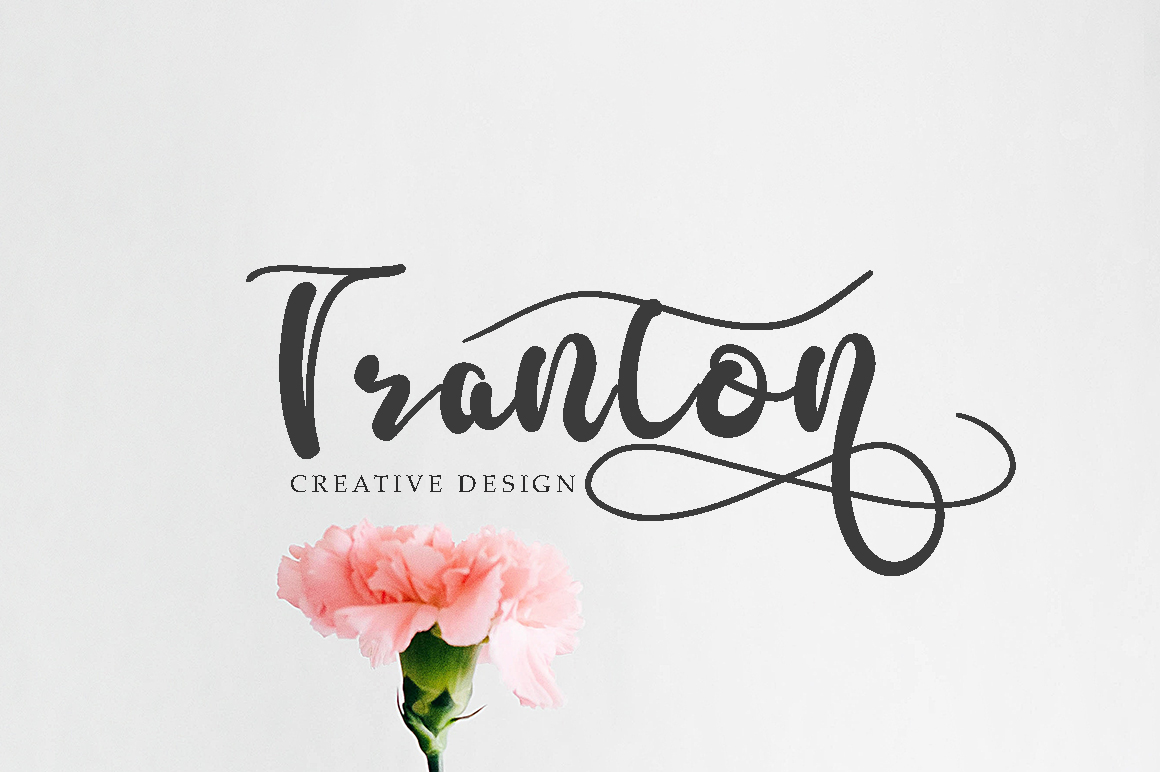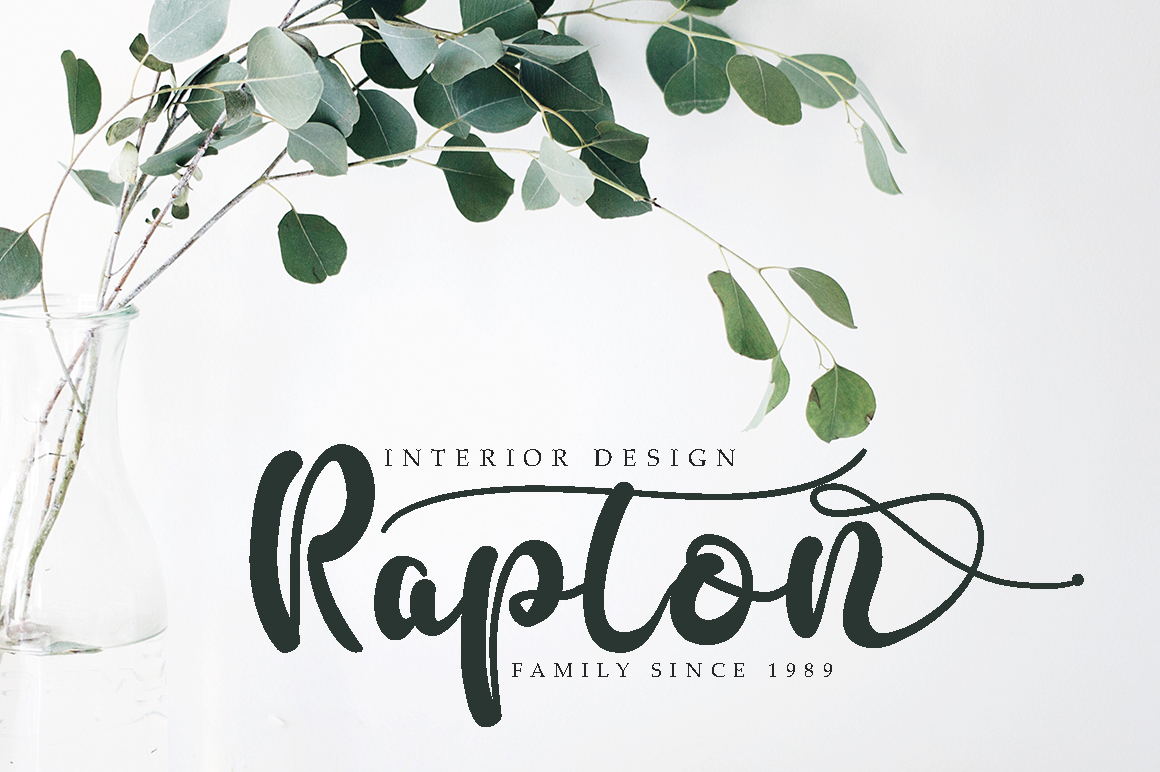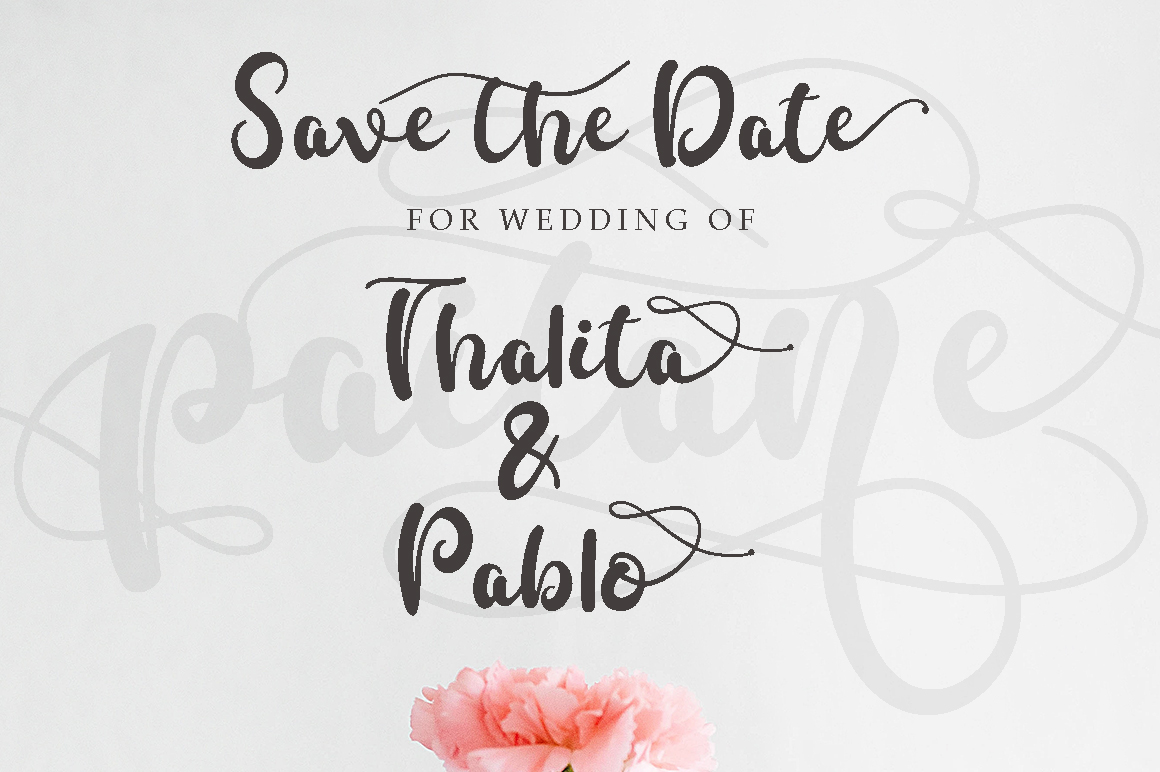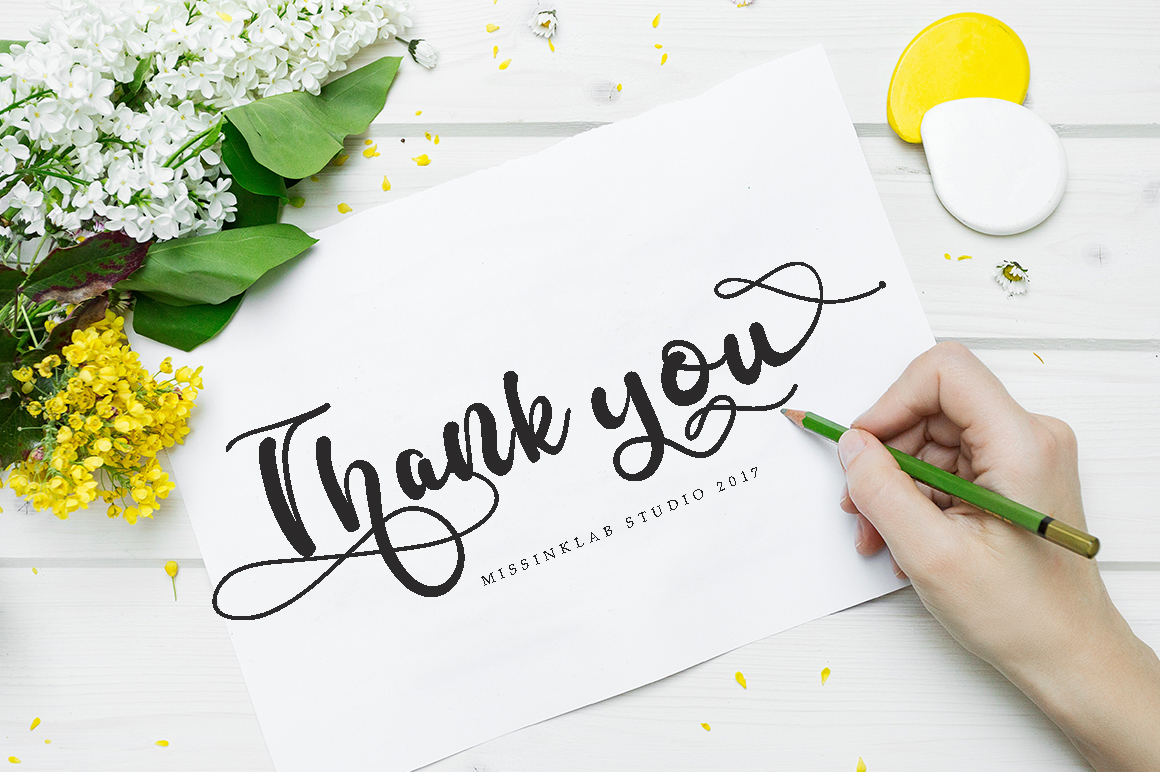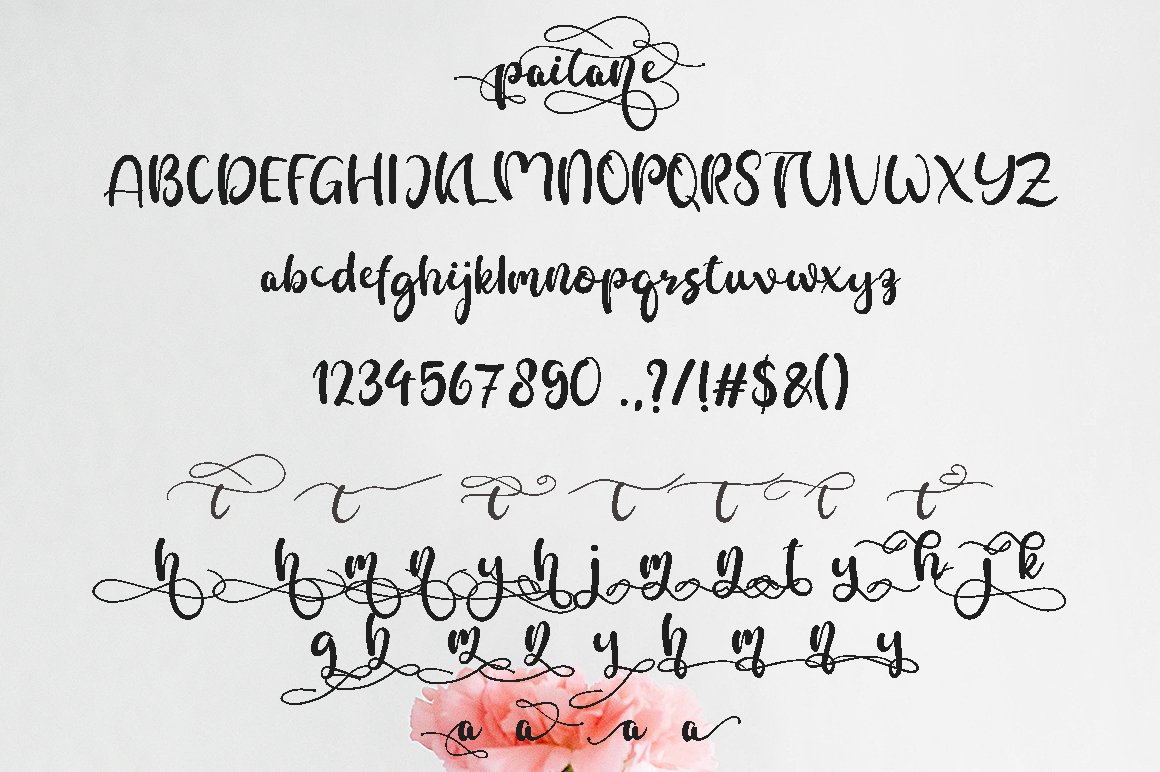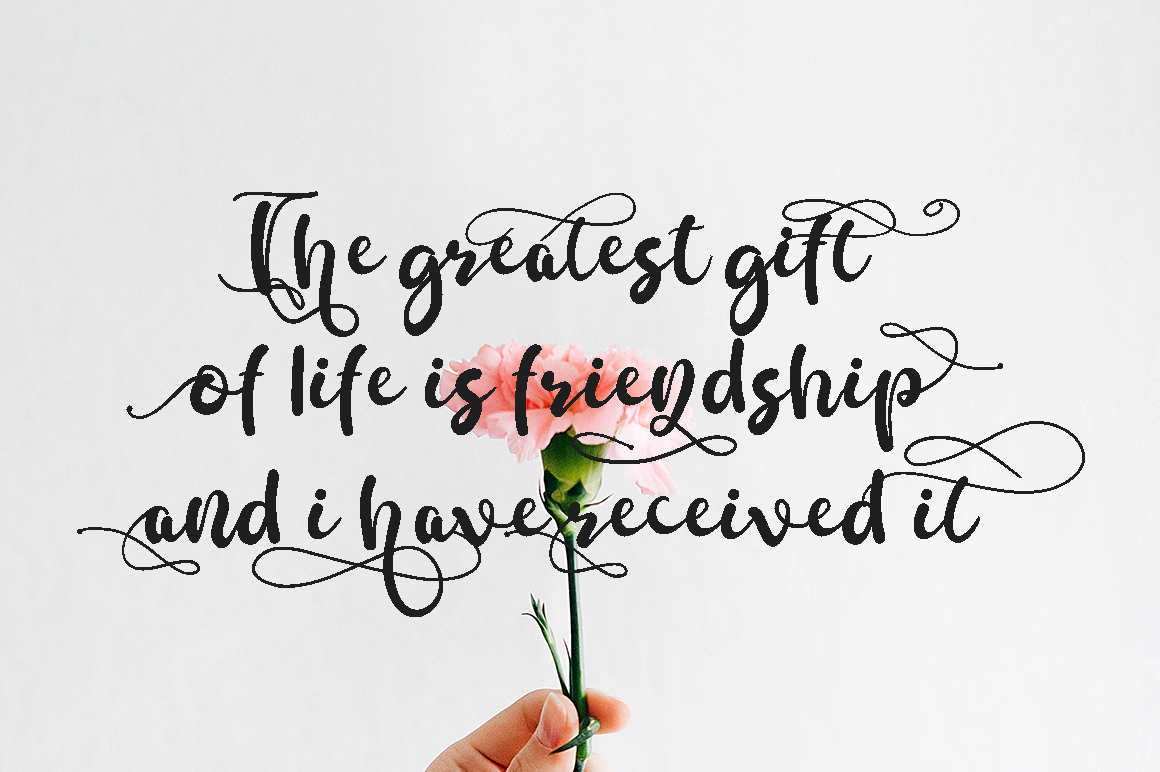
Introduction to Paitane Font
Paitane is a modern font packed with stunning swashes.
Allowing you to create many different types of projects .
Key Features of Paitane Font
Why Choose Paitane Font?
Paitane Font offers exceptional quality and versatility, making it a valuable addition to your design toolkit. Whether you’re creating for personal projects or commercial use, Paitane Font delivers professional results.